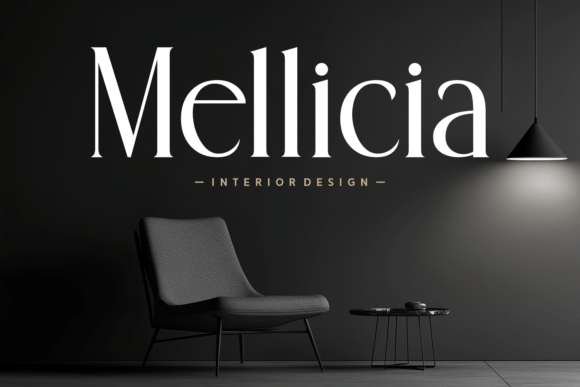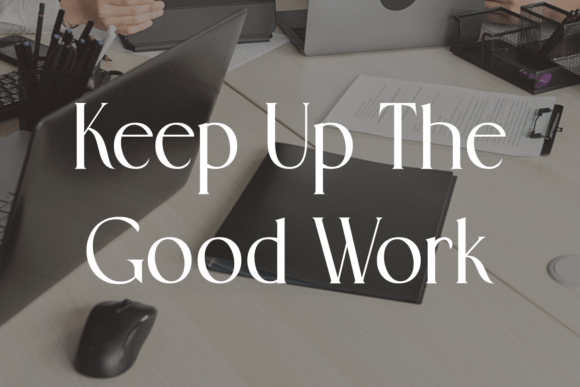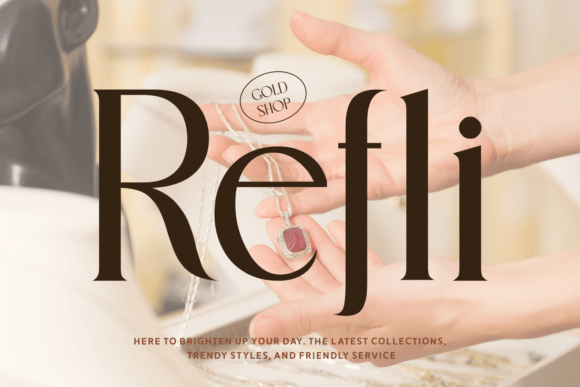
Introduction to Defalco Font
A promotional image presenting β€œDefalco,” a modern serif typeface.
The font is displayed in a crisp, elegant white, layered over a dark and moody photograph of a luxurious, contemporary interior The sophisticated setting, featuring designer furniture and atmospheric lighting, perfectly complements the font’s high-end and chic character.
Key Features of Defalco Font
Why Choose Defalco Font?